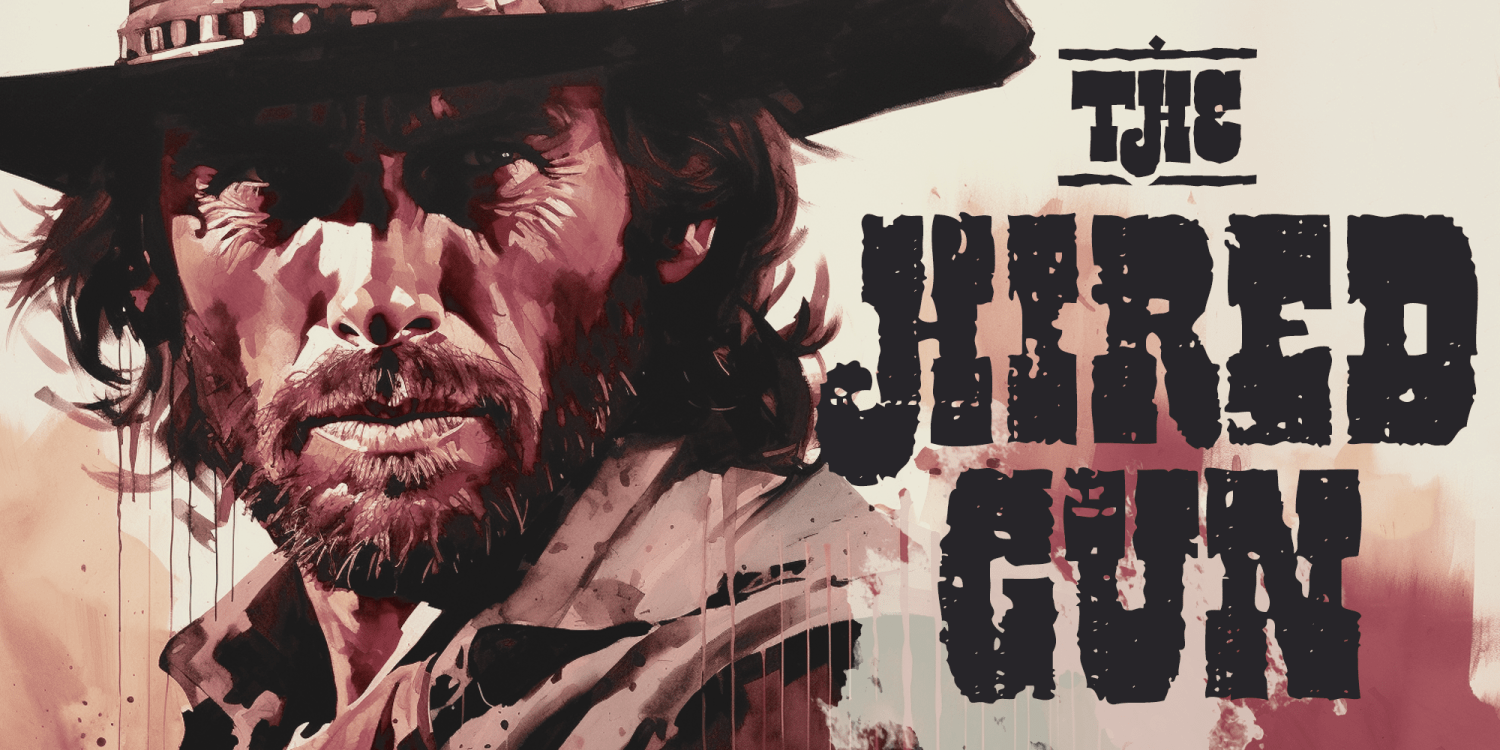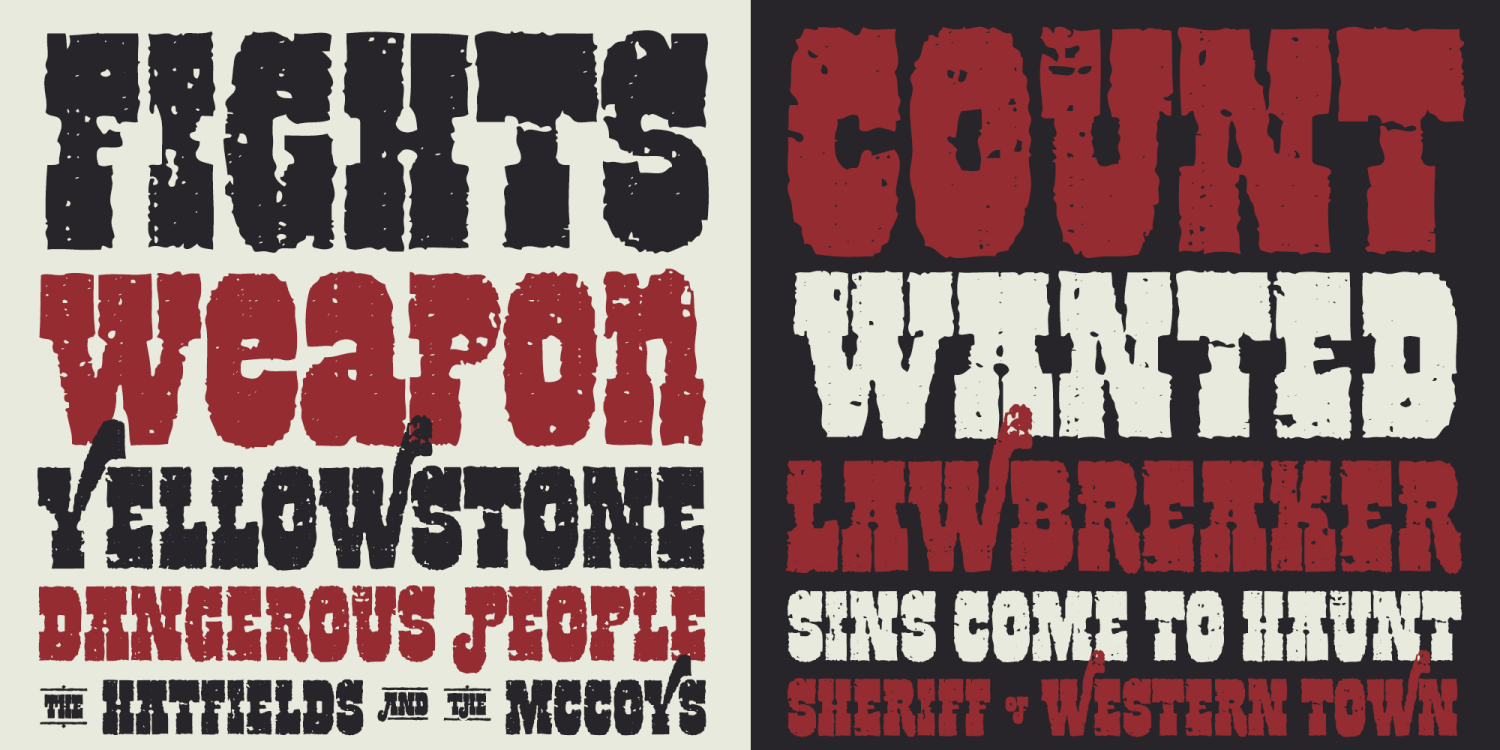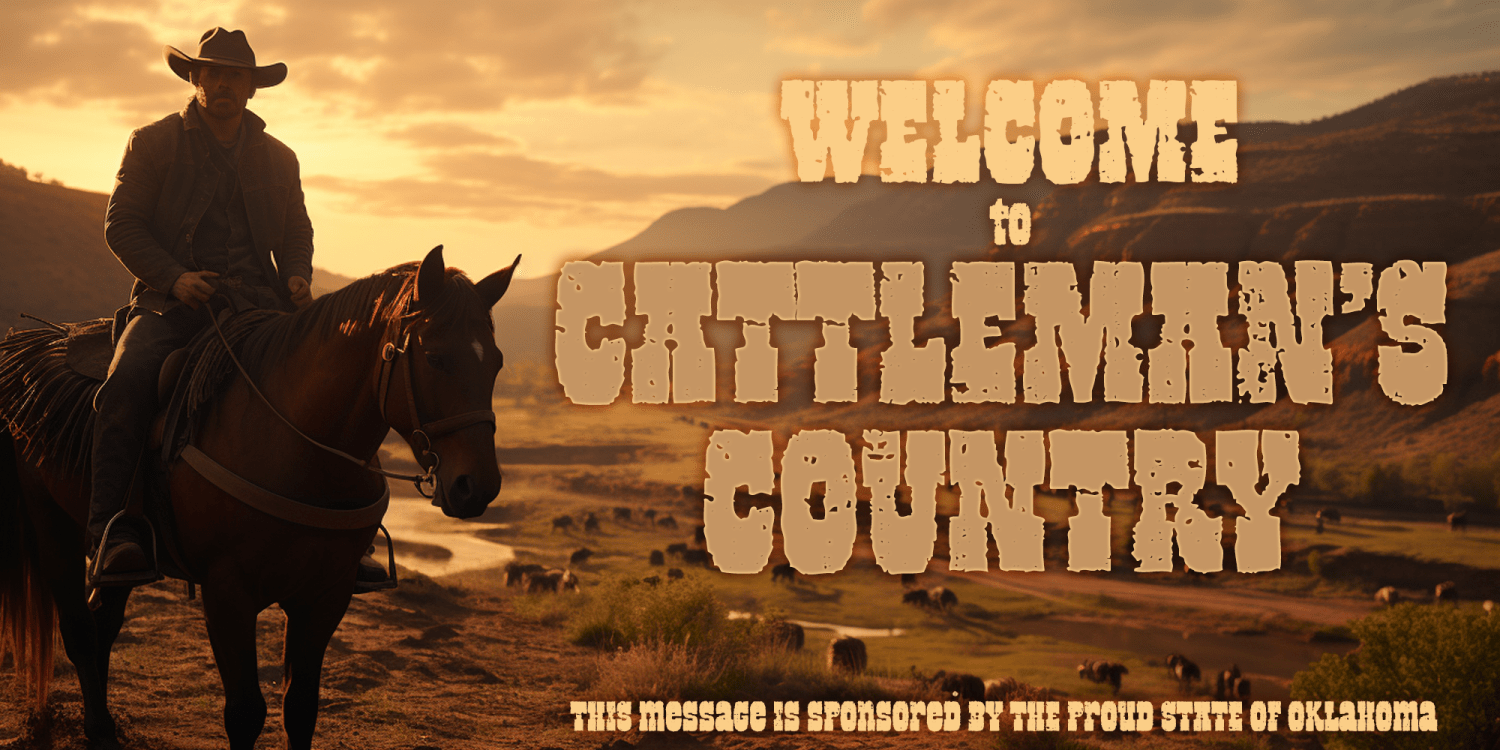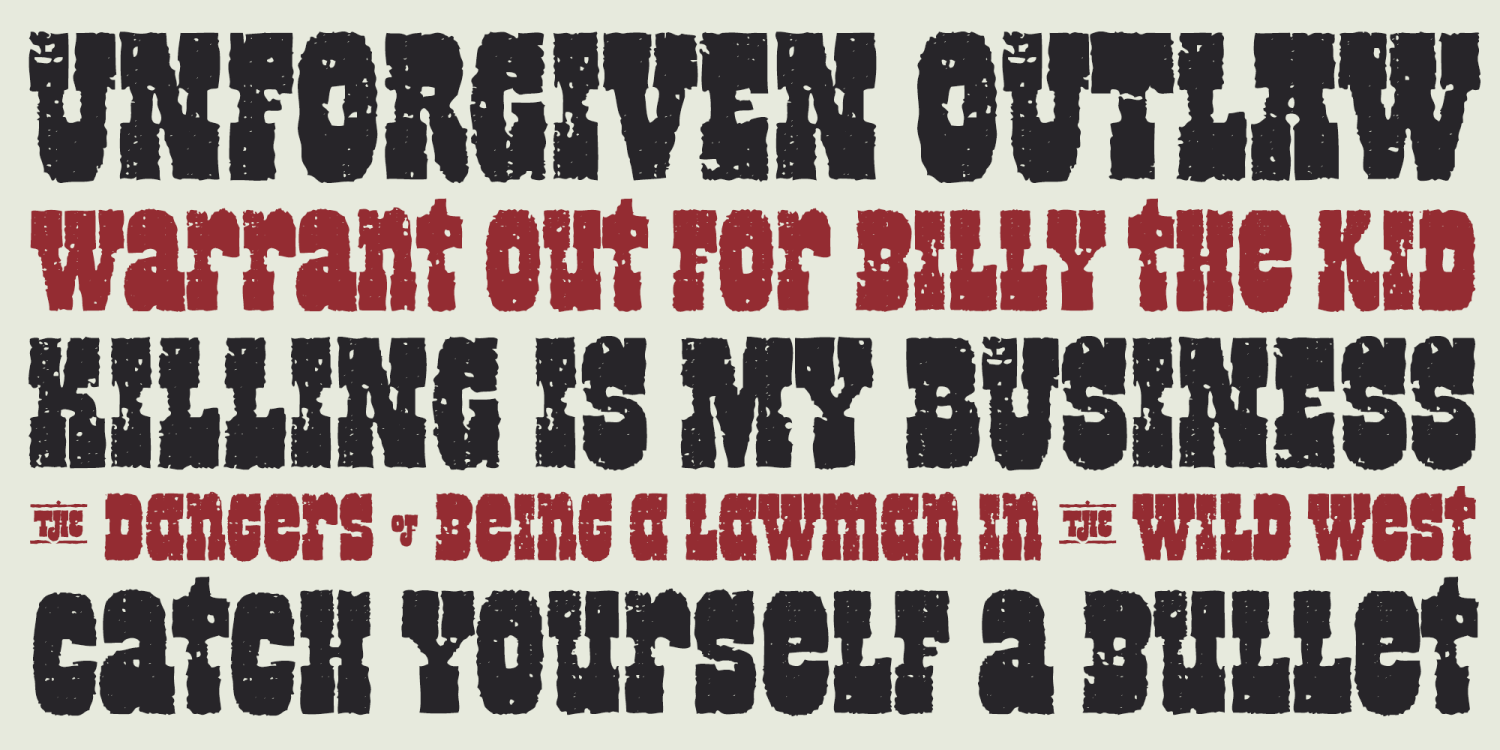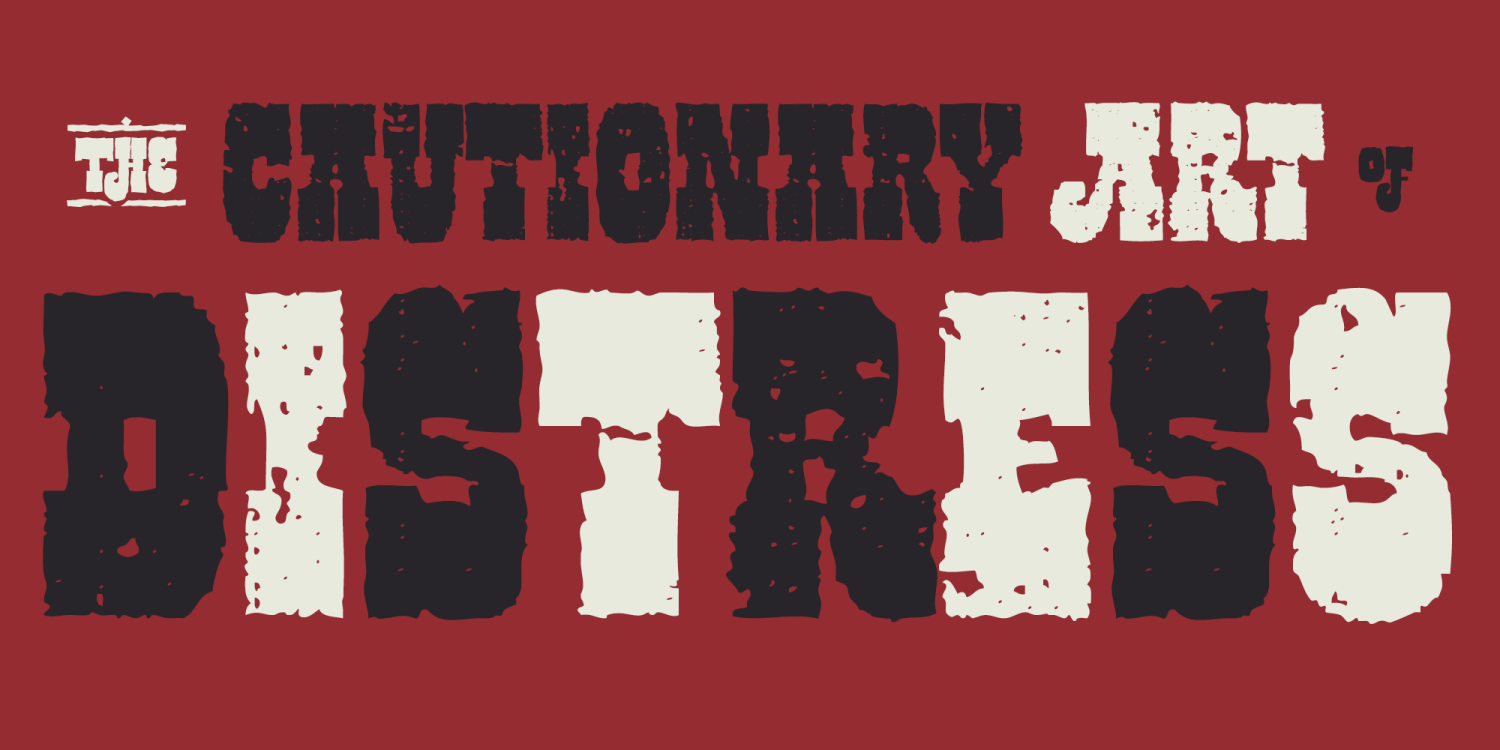
About Black Bart Shotgun
From the same stylings of Black Bart comes Black Bart Shotgun: aged and eroded by time, like pitting and chipping paint on an old barn. This old cowboy has been there and done that, seen all there is to see and is still alive to tell the tale. You'll…